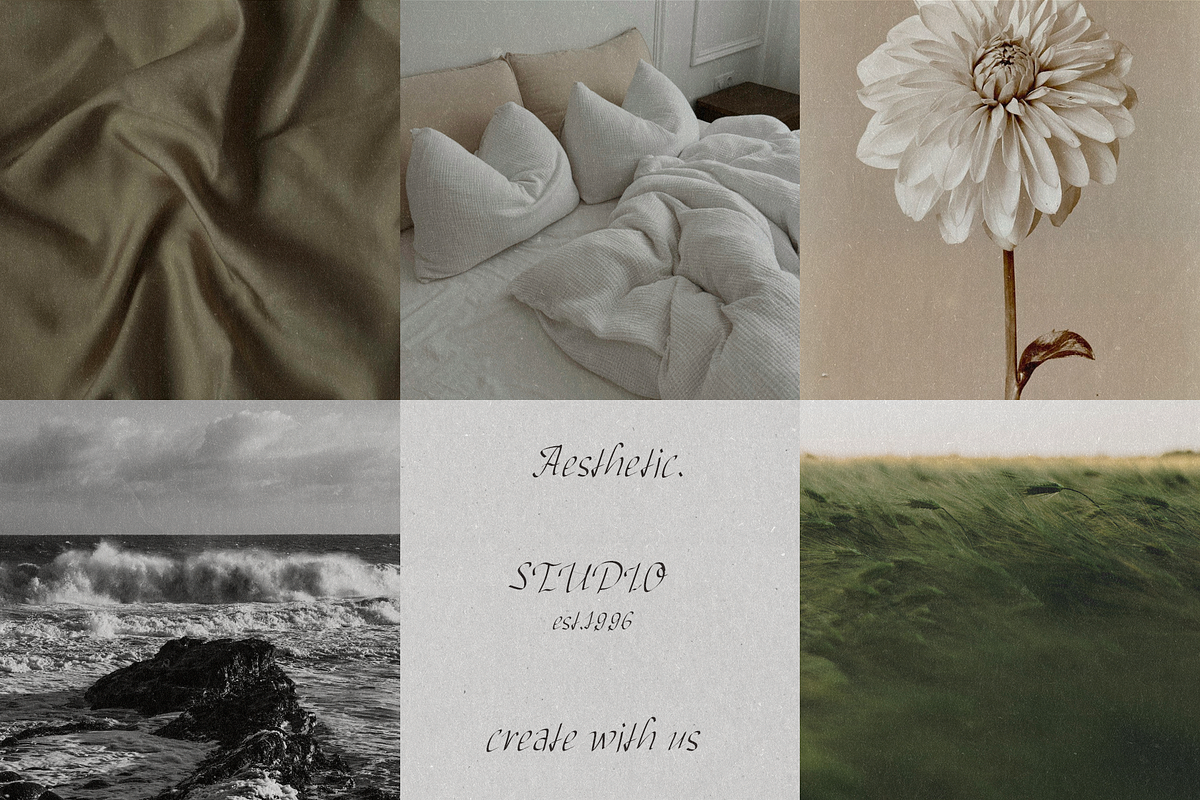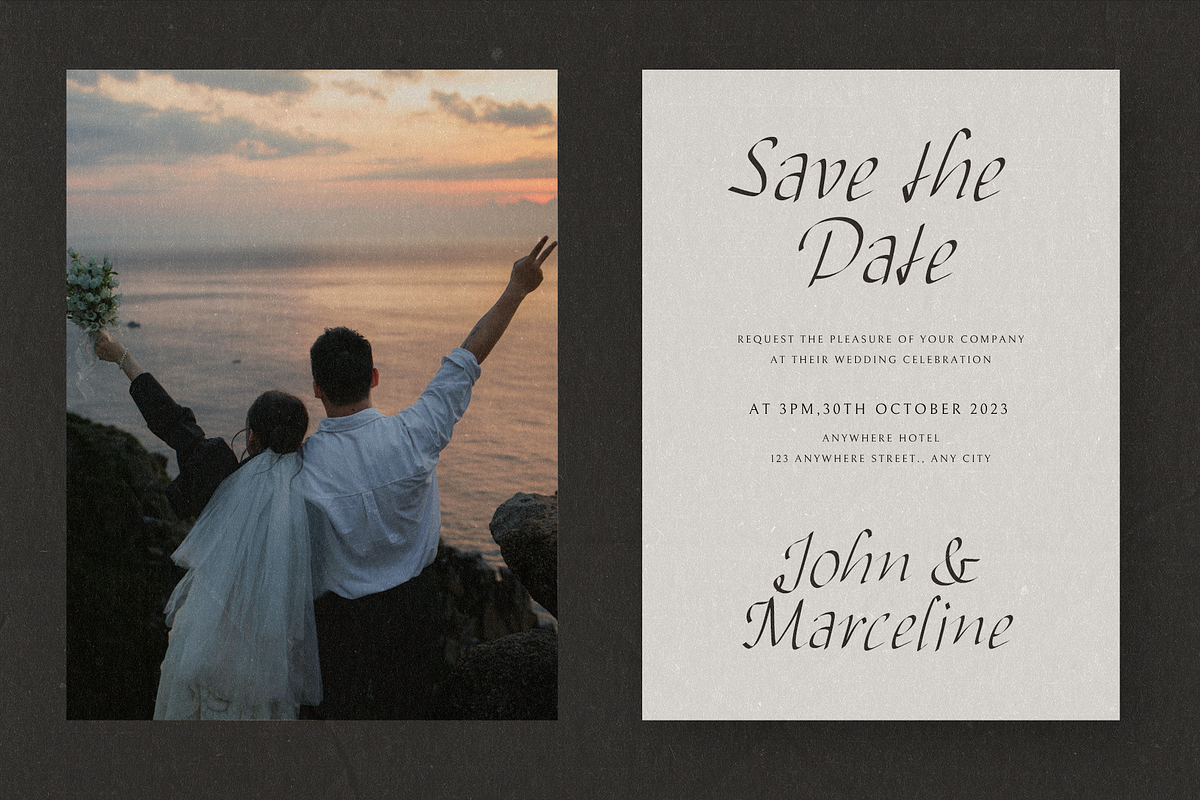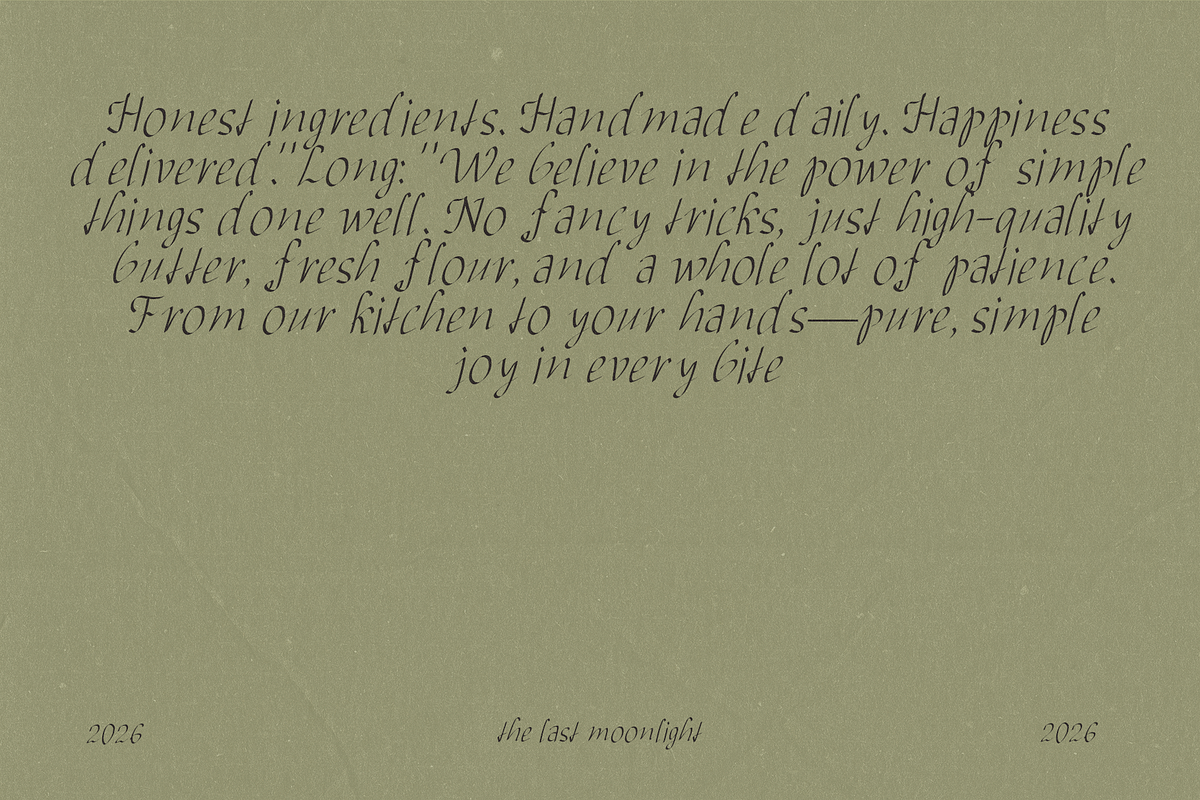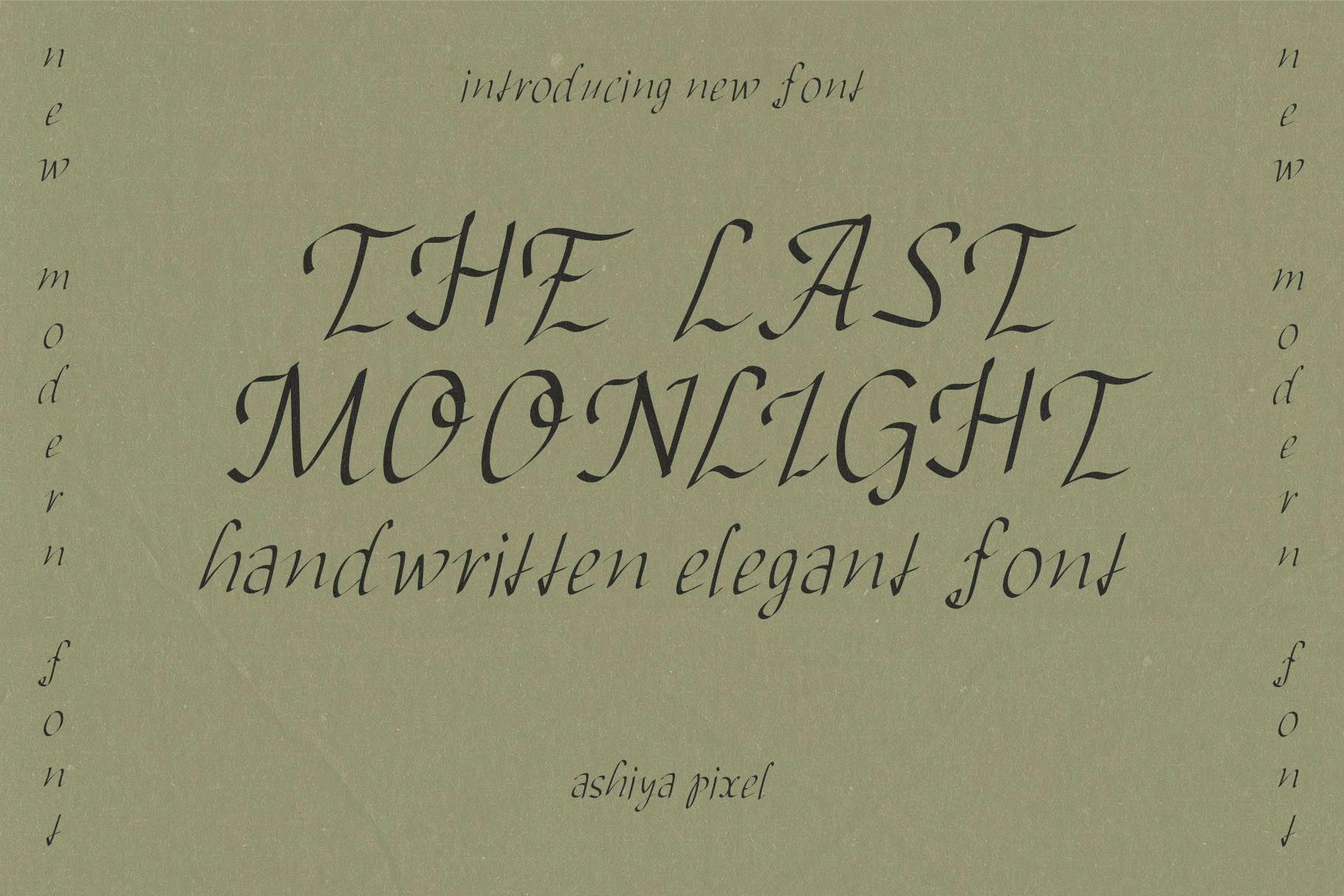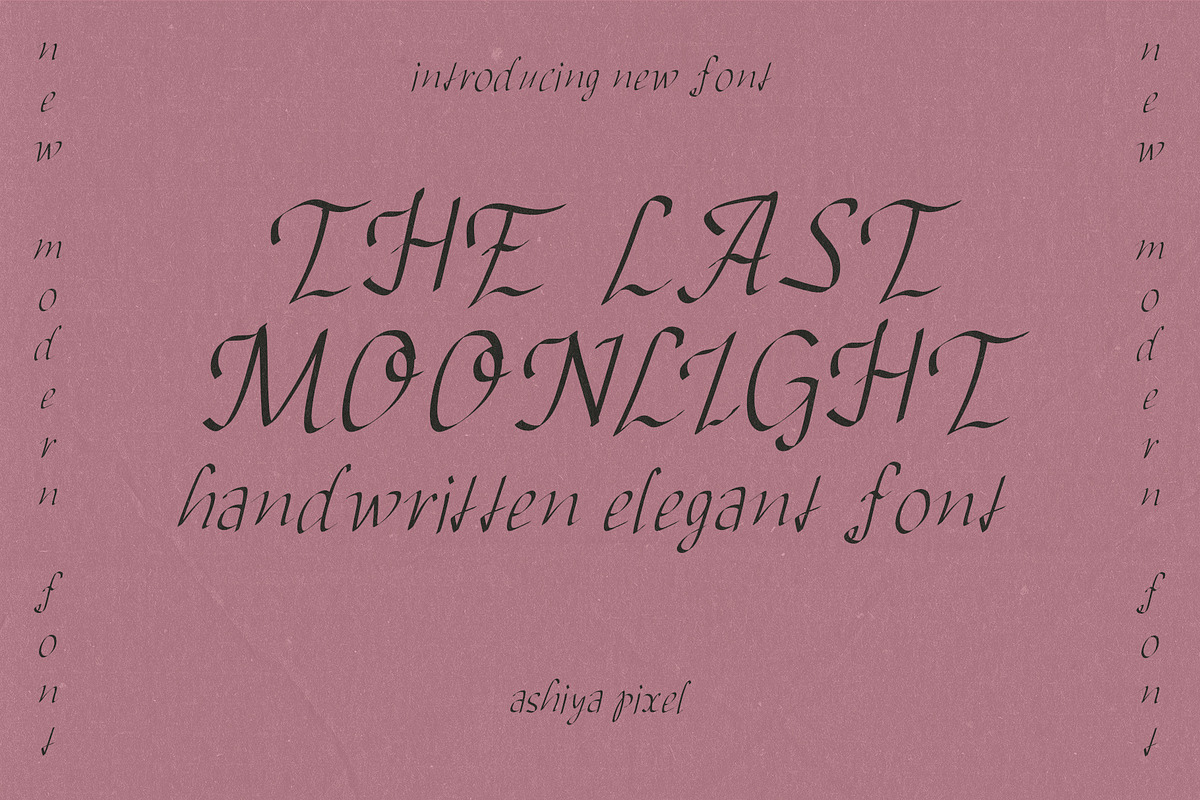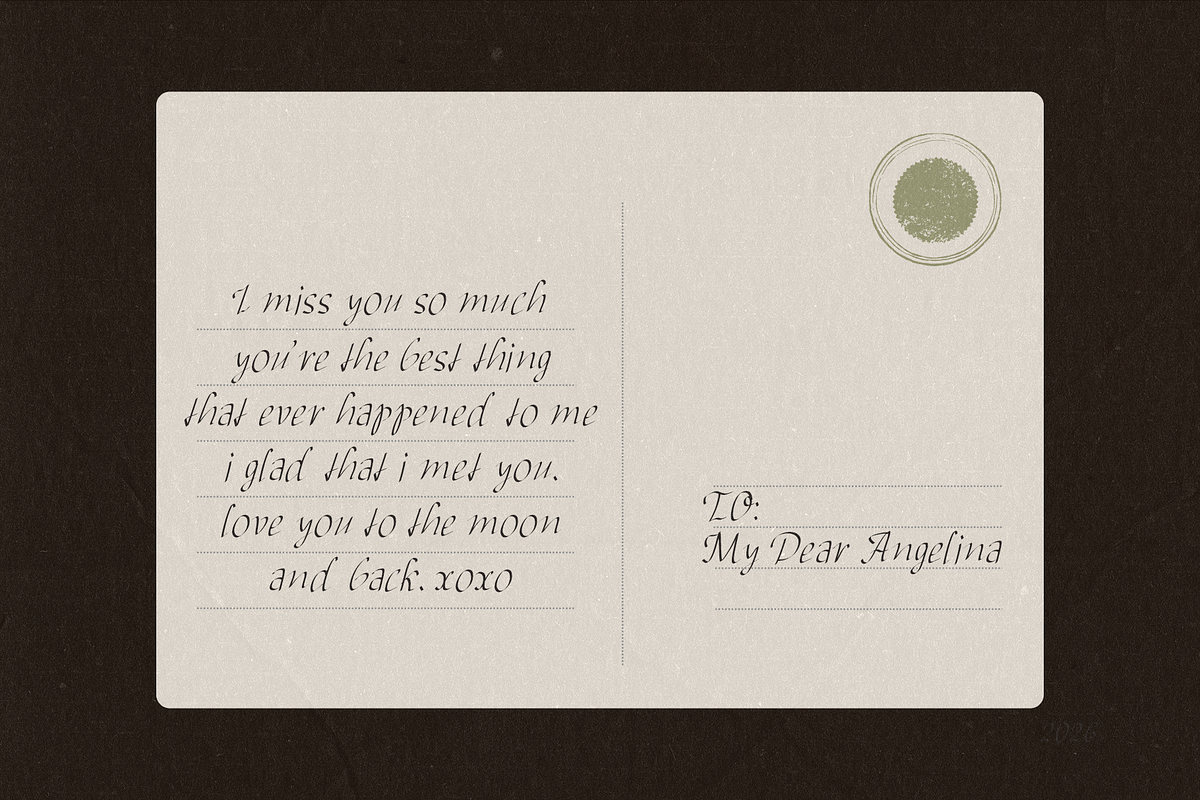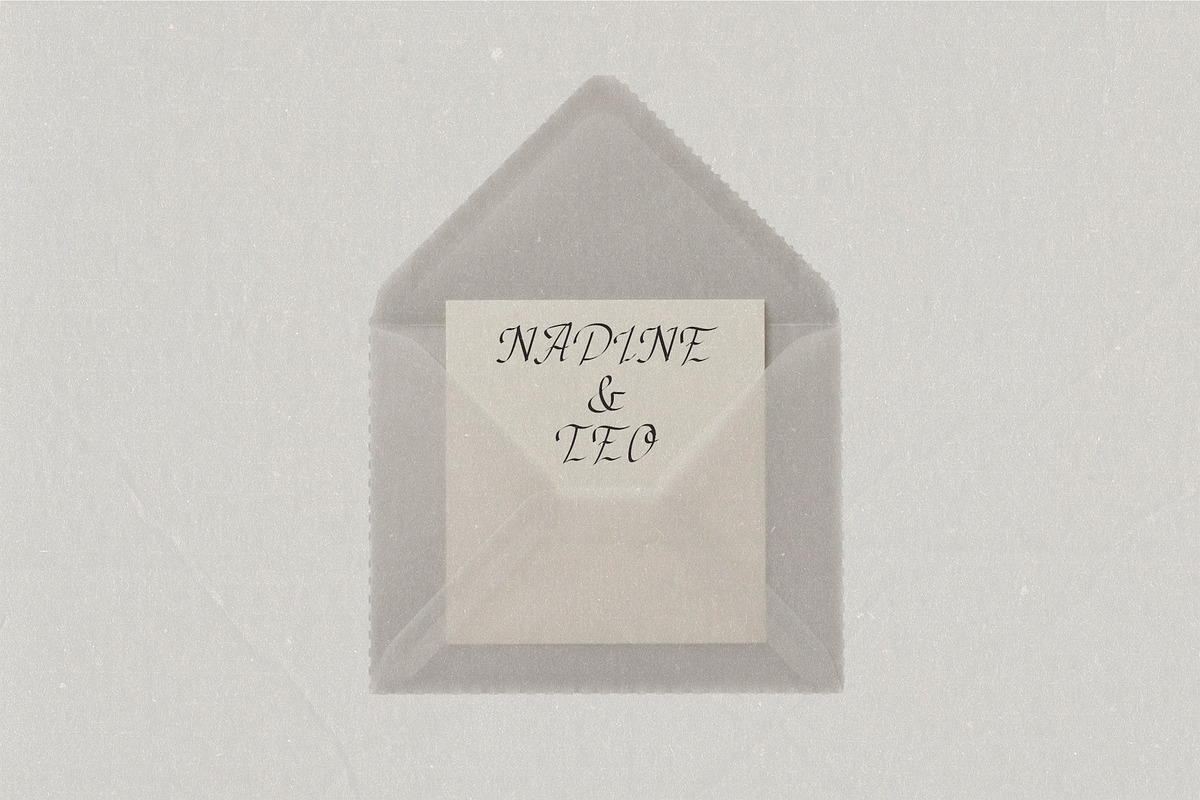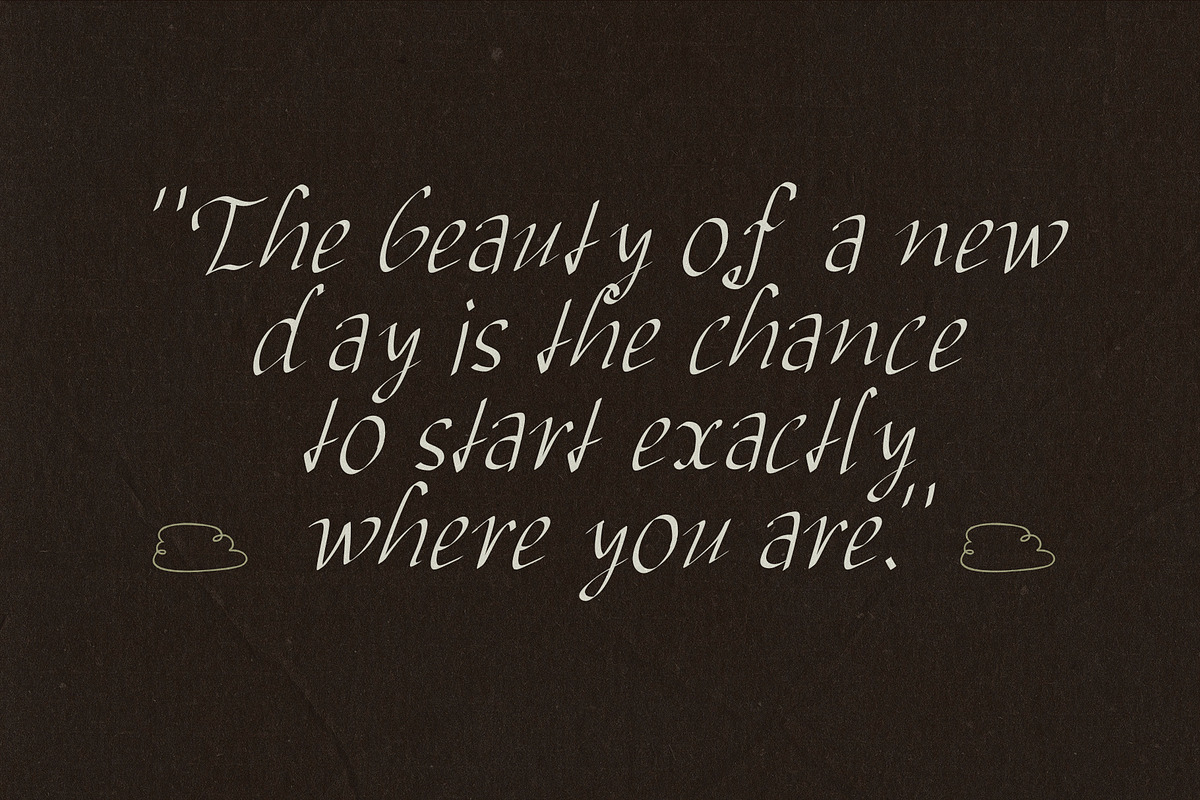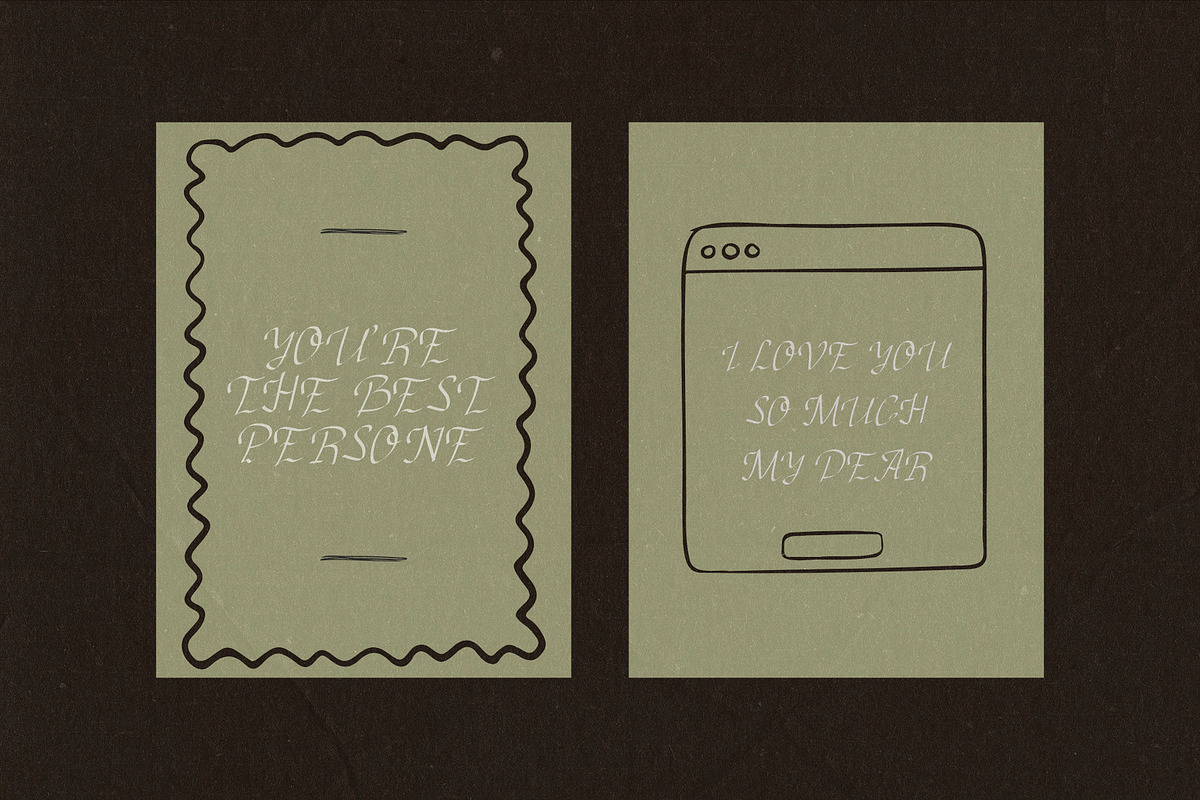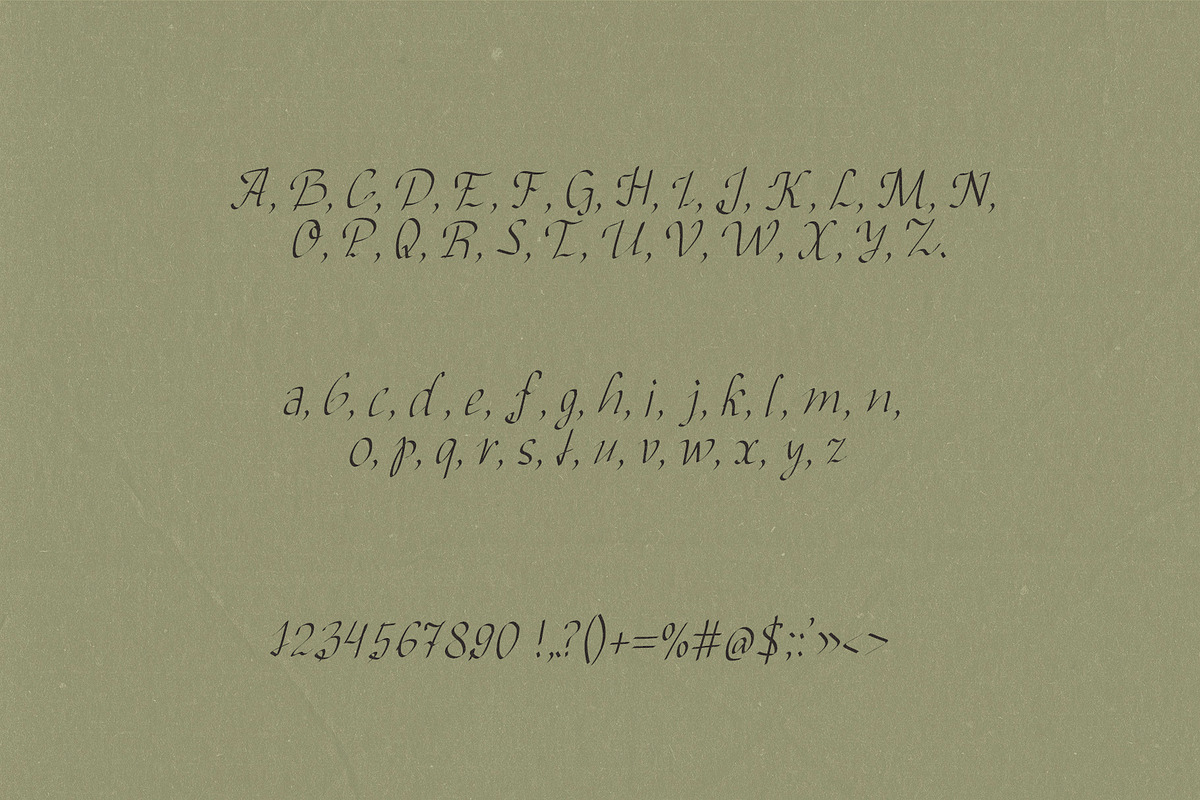
Romantic Handwritten Caligraphy Font
Meet a romantic vintage script font designed to bring elegance and handmade charm to your creative projects. With flowing calligraphic strokes, delicate curves, and an old-world editorial feel, this typeface is perfect for luxury branding, packaging, wedding invitations, book covers, logos, social media, and refined visual identities.
Inspired by handwritten letters, antique manuscripts, and artisanal packaging, this font balances sophistication and softness, making it ideal for both timeless and contemporary designs.
Perfect for: • Luxury branding & logos • Packaging design • Wedding invitations • Editorial layouts • Beauty & fashion brands • Book covers • Quotes & social media • Café / bakery branding • Boutique identities • Product labels